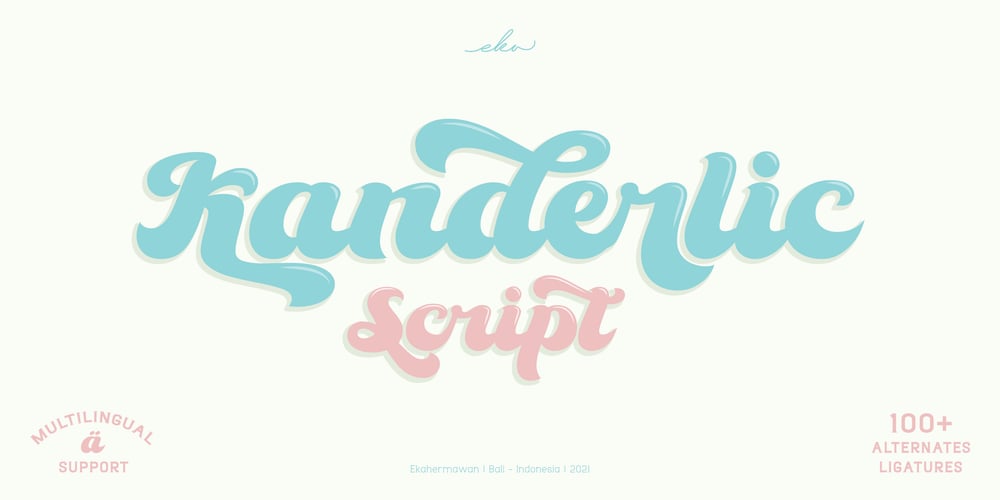
The Kanderlic Font Family was designed by Putu Eka Hermawan and published by Ekahermawan. The Kanderlic contains 1 styles and family package options. Kanderlic is a retro bold script for any display use.Kanderlic also includes a bunch of alternate characters (PUA Encoded) and ligatures to give you a wide range for create an unique typographic design results.Kanderlic is versatile font for many different projects which will bring you back in late 60’s untill 70’s such as logo, branding, poster, magazines, labels, merchandise, invitation, presentation, advertising, quotes and so much more!FEATURES: OpenType support Playfull to use (with ligatures and alternates options) Multilingual support PUA Encoded If you need support or more information about this itemplease kindly contact me :ekahermawanputu@gmail.comThank you so muchI really hope you enjoy when using it!